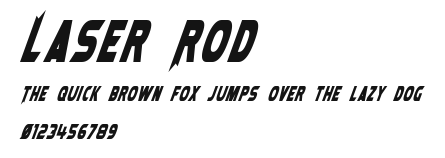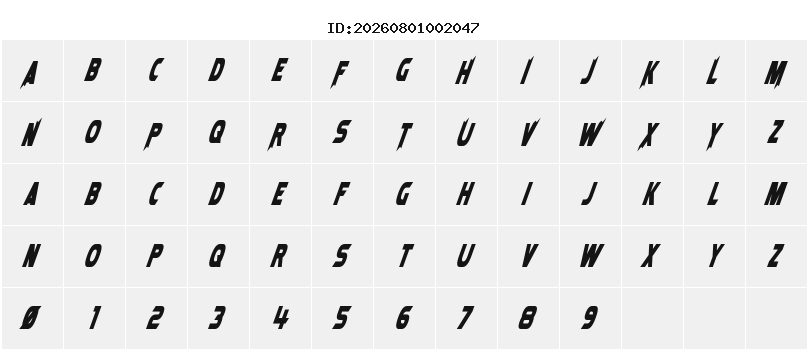
• Font Name: Laser Rod
• Font ID: Laser Rod Italic:Version 1.00
• Full Font Name: Laser Rod Italic
• Version: Version 1.00 March 22, 2013, initial release
• PostScript Name: LaserRod-Italic
• Designer: Neale Davidson
About Laser Rod.ttf
Laser Rod.ttf is a modern, elegant sans-serif font designed for ultimate readability and visual harmony. Perfect for branding, headlines, web design, and print materials.